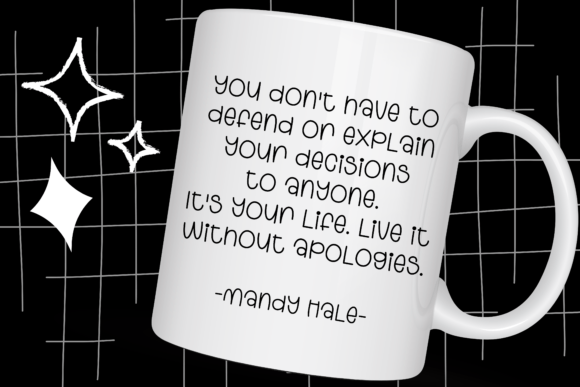
Introducing Figure Font: A Playful and Friendly Handwritten Sans Serif Font
Are you looking for a font that can add a touch of fun and friendliness to your projects? Look no further than Figure Font, a playful and friendly handwritten sans serif font designed to bring a smile to your audience’s face. In this article, we’ll explore the features and benefits of Figure Font, and how it can be used to elevate your DIY projects, from Easter and back to school themes to wedding and party decorations, and more.
What is Figure Font?
Figure Font is a unique and charming handwritten sans serif font that is perfect for adding a personal touch to your projects. Its playful and friendly design makes it ideal for a wide range of applications, from fun and casual to more formal and elegant designs. The font is carefully crafted to ensure that it is easy to read and understand, making it perfect for use in body text, headings, and titles.
Key Features of Figure Font
- Playful and Friendly Design: Figure Font has a unique and charming handwritten design that is sure to capture the attention of your audience.
- Handwritten Sans Serif Font: The font features a sans serif design with a handwritten feel, making it perfect for a wide range of projects.
- Ease of Readability: The font is carefully crafted to ensure that it is easy to read and understand, making it perfect for use in body text, headings, and titles.
- Multilingual Support: Figure Font supports multiple languages, making it a great choice for projects that require international appeal.
Use Cases for Figure Font
Figure Font is a versatile font that can be used in a wide range of projects, including:
- Easter and Spring-themed Projects: Add a touch of fun and playfulness to your Easter and spring-themed projects with Figure Font.
- Back to School Projects: Make your back to school projects stand out with Figure Font’s playful and friendly design.
- Wedding and Party Decorations: Use Figure Font to add a personal touch to your wedding and party decorations, invitations, and more.
- Halloween and Christmas Projects: Get into the holiday spirit with Figure Font’s playful and festive design.
- Posters and Blogs: Use Figure Font to add a touch of personality to your posters, blogs, and social media posts.
- Clothing and Child-related Designs: Figure Font is perfect for use in clothing and child-related designs, such as baby shower invitations and kids’ party decorations.
- Greeting Cards and Social Media Posts: Add a personal touch to your greeting cards and social media posts with Figure Font’s friendly and approachable design.
Benefits of Using Figure Font
Using Figure Font in your projects offers a range of benefits, including:
- Unique and Eye-catching Design: Figure Font’s playful and friendly design is sure to capture the attention of your audience.
- Improved Readability: The font’s clear and easy-to-read design makes it perfect for use in body text, headings, and titles.
- Versatility: Figure Font can be used in a wide range of projects, from fun and casual to more formal and elegant designs.
- Time-saving: With Figure Font, you can create professional-looking projects quickly and easily, without the need for extensive design experience.
Tips and Tricks for Using Figure Font
Here are some tips and tricks for getting the most out of Figure Font:
- Experiment with Different Font Sizes and Styles: Try out different font sizes and styles to find the one that works best for your project.
- Use Figure Font in Combination with Other Fonts: Use Figure Font in combination with other fonts to create a unique and eye-catching design.
- Add a Personal Touch: Use Figure Font to add a personal touch to your projects, such as by adding handwritten notes or signatures.
Figure Font is a playful and friendly handwritten sans serif font that is perfect for adding a touch of fun and personality to your projects. With its ease of readability, versatility, and unique design, Figure Font is a great choice for a wide range of applications, from Easter and back to school themes to wedding and party decorations, and more. Download Figure Font today and bring your DIY projects to life!